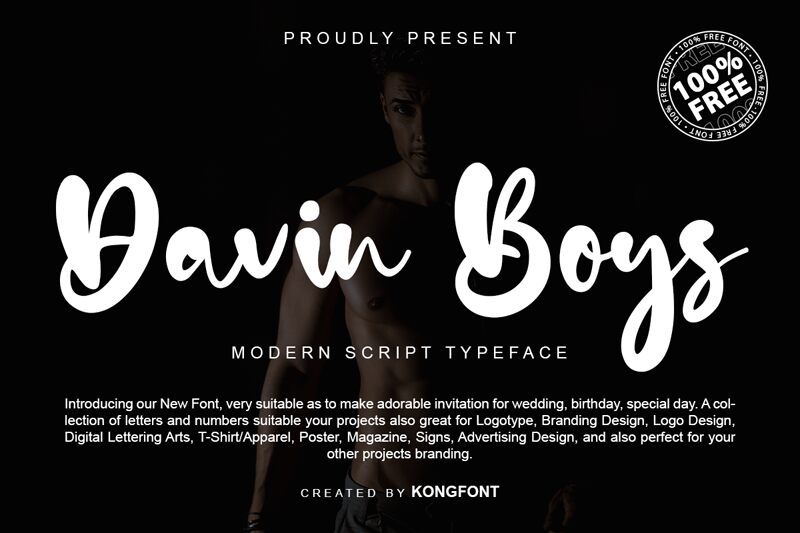
Davin Boys
Davin Boys by Kong Font is a bold and modern smooth brush font that exudes strength and sophistication. The playful strokes of this typeface make it perfect for creative projects such as branding, packaging, and advertising. Its bold weight commands attention, making it ideal for headlines and titles. Davin Boys' sleek design makes it suitable for a variety of industries, including fashion, beauty, and lifestyle. Whether you're designing a logo or creating social media graphics, this versatile font is sure to make your project stand out.